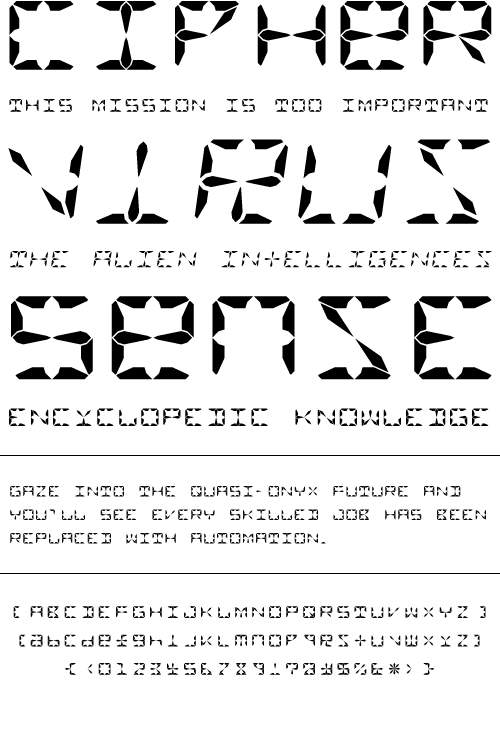
KAH
KAH is a font which is based on a strict LCD-style grid. KAH is perfect for mocking up LCD screens or to create a technological/futuristic aesthetic in your design.